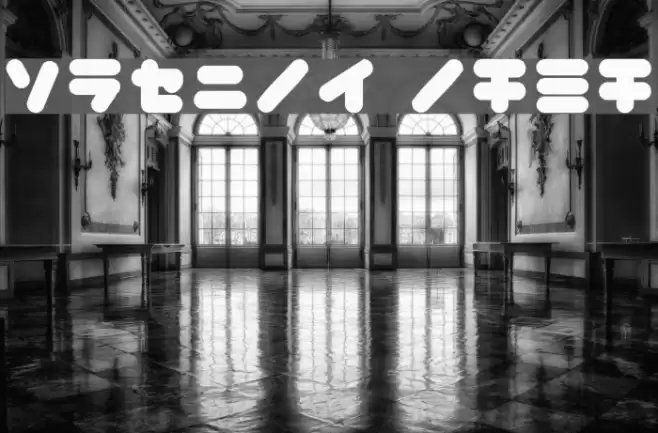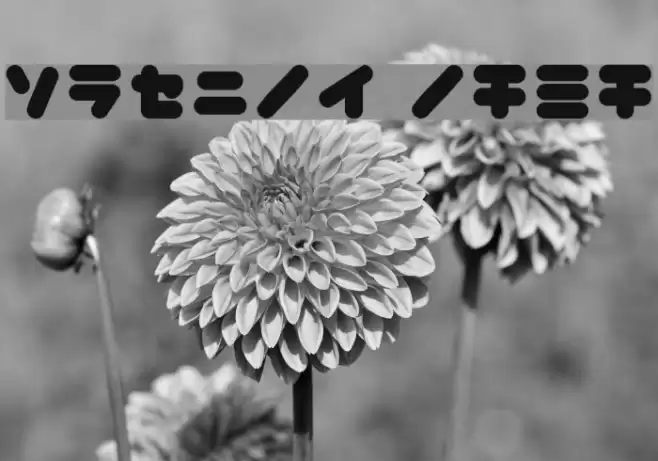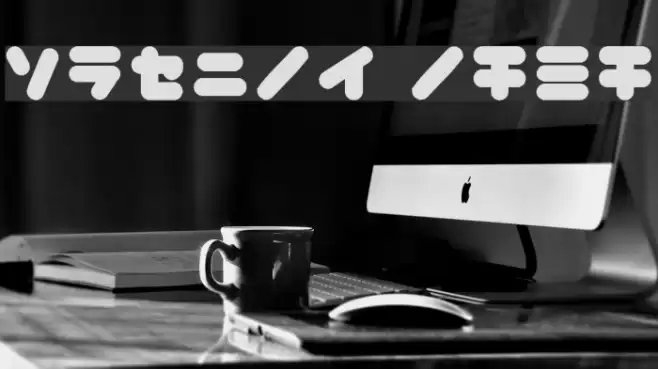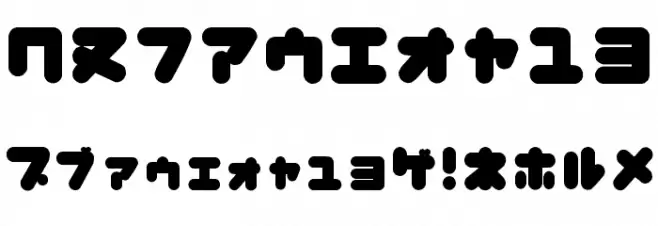
copike kana Font
copike kana Description
This font features a bold and playful design with rounded edges and a bubbly appearance. Each character is crafted with a consistent thickness, giving it a uniform and cohesive look. The style is reminiscent of cartoon or comic lettering, making it ideal for projects that require a fun and informal tone. The characters are well-spaced, ensuring readability while maintaining a compact form. This font is particularly suitable for creative and youthful designs, where a sense of whimsy and approachability is desired.
A bold, playful font with rounded edges and a comic-like style from Uncategorized fonts.
- Proposed Projects: Ideal for children's books, comic strips, playful branding, and informal event posters.
- Overall Style: Playful, Cartoonish, Fun
- Use Case: Headlines, Posters, Branding